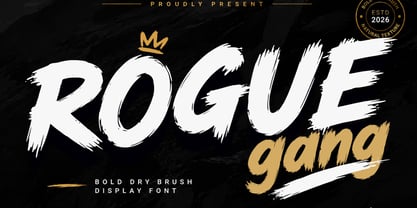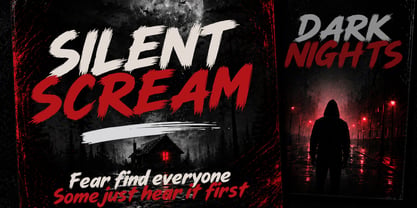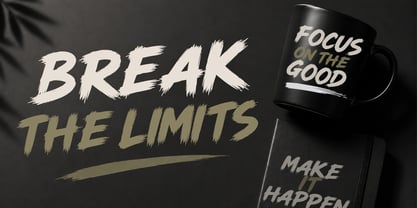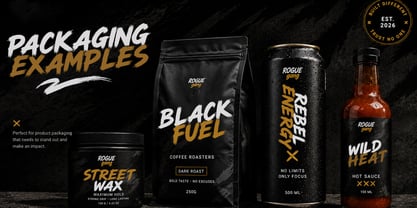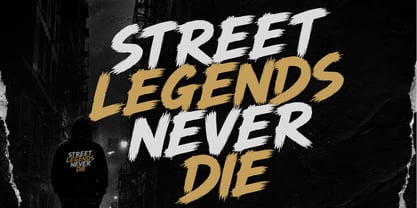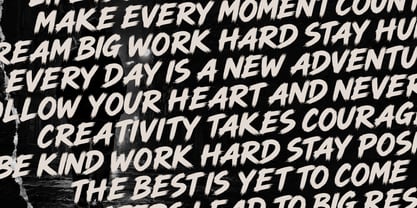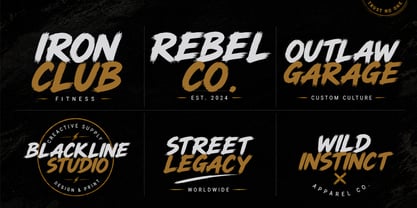
Rogue gang
by Cocodesign
The Rogue gang Font Family was designed by Muhammad Zaini and published by Cocodesign. Rogue gang contains 2 styles and family package options. More about this family
Rogue Gang is a bold dry brush display font designed to infuse energy, confidence, and authenticity into every project. With its handcrafted brush strokes and natural dry texture, this typeface delivers a striking visual impact while ensuring excellent readability. Each character is meticulously crafted to achieve a dynamic and expressive appearance, making it ideal for designs that require a bold, modern, and artistic flair. Whether utilized for branding, promotional materials, or creative layouts, Rogue Gang imparts a unique handcrafted essence that shines in both digital and print media. It is perfect for creating eye-catching headlines, logos, packaging, apparel, posters, social media graphics, and a wide array of other creative applications.
Designers: Muhammad Zaini
Foundry: Cocodesign